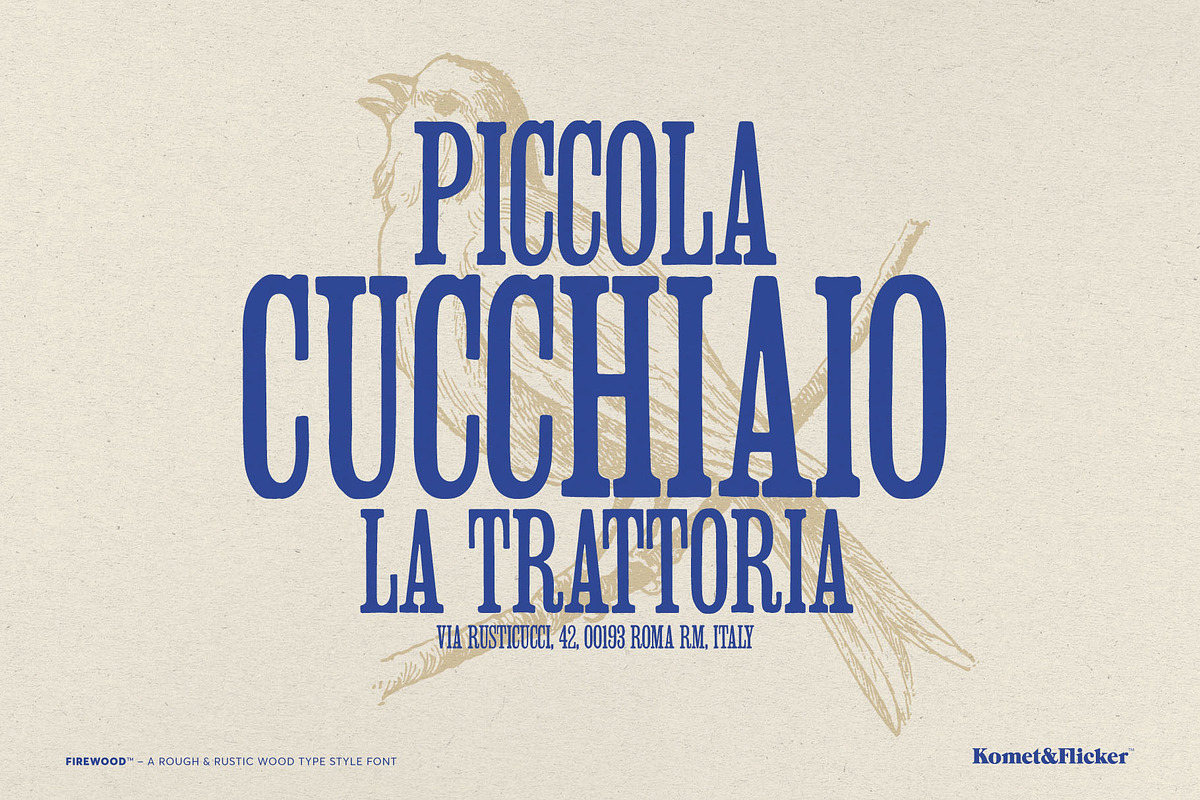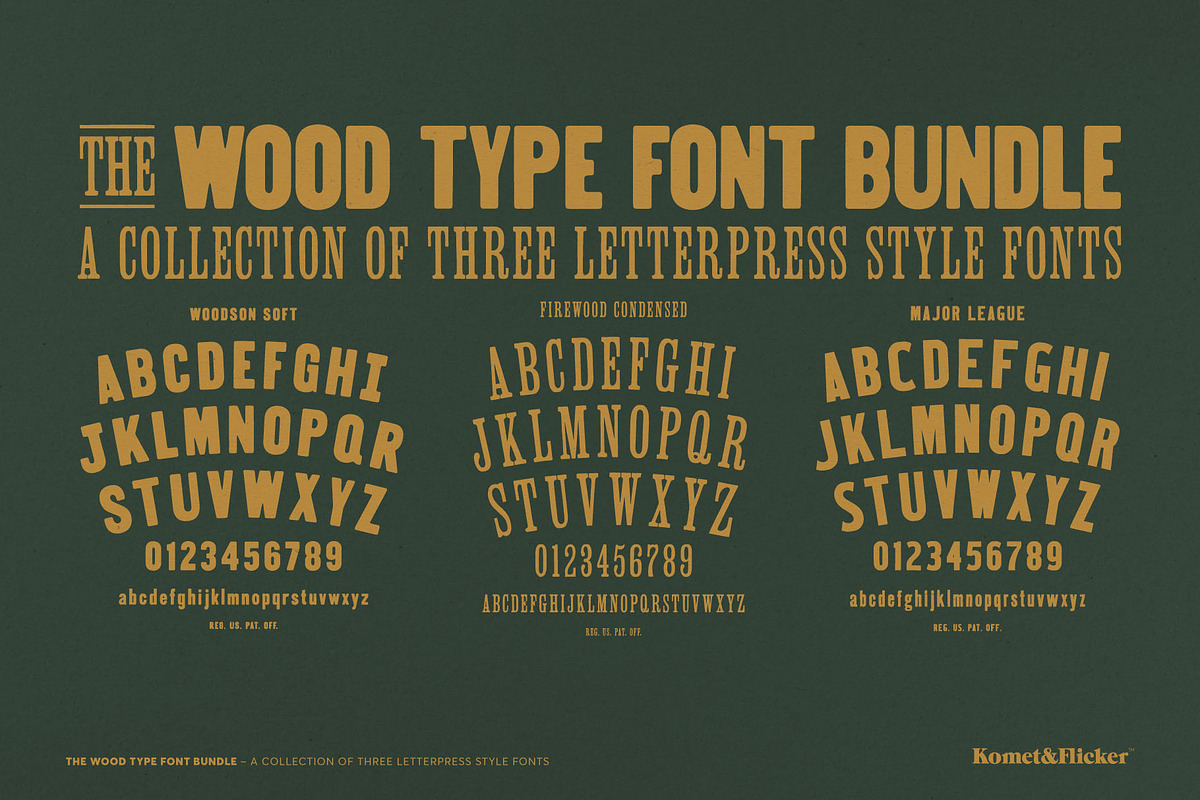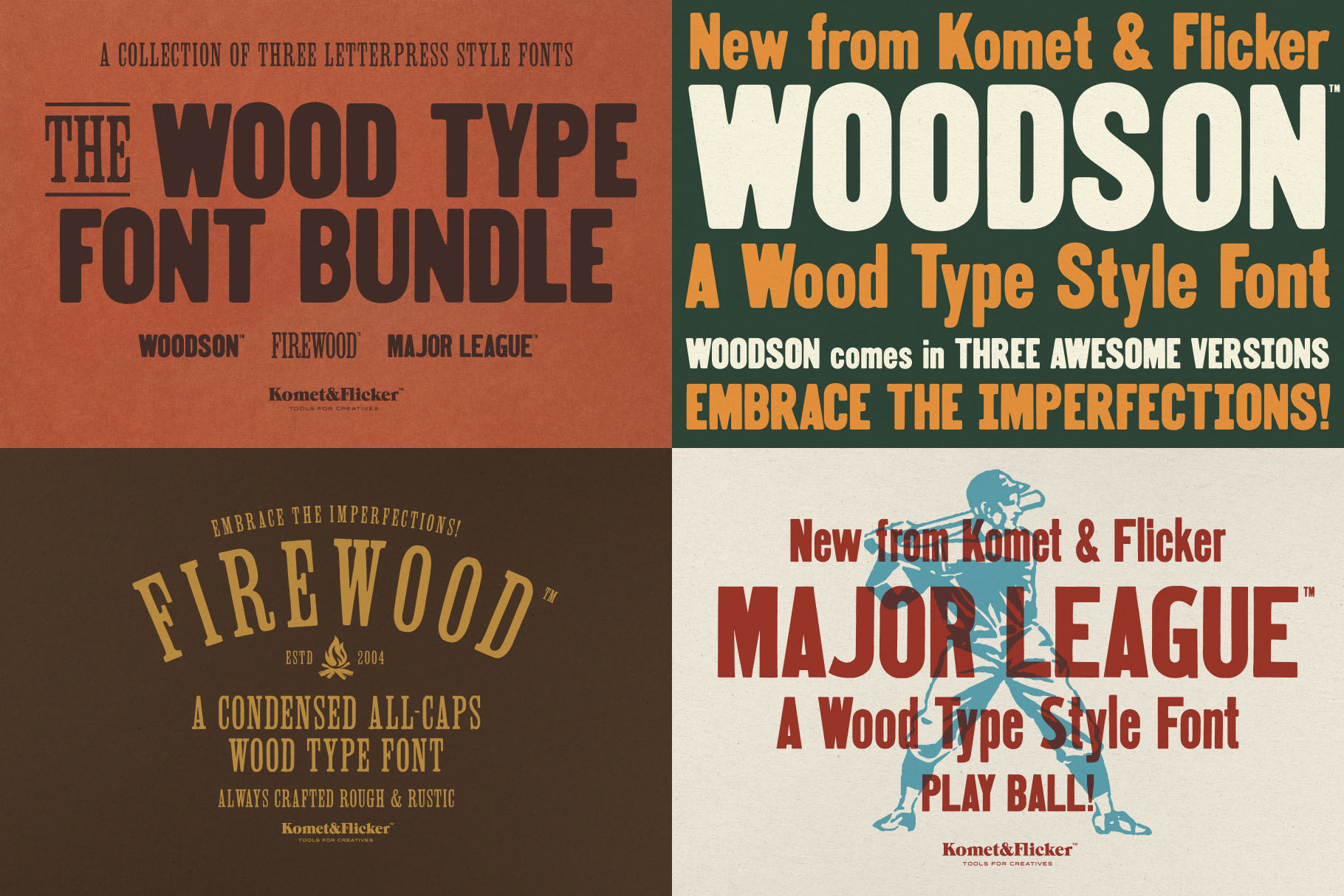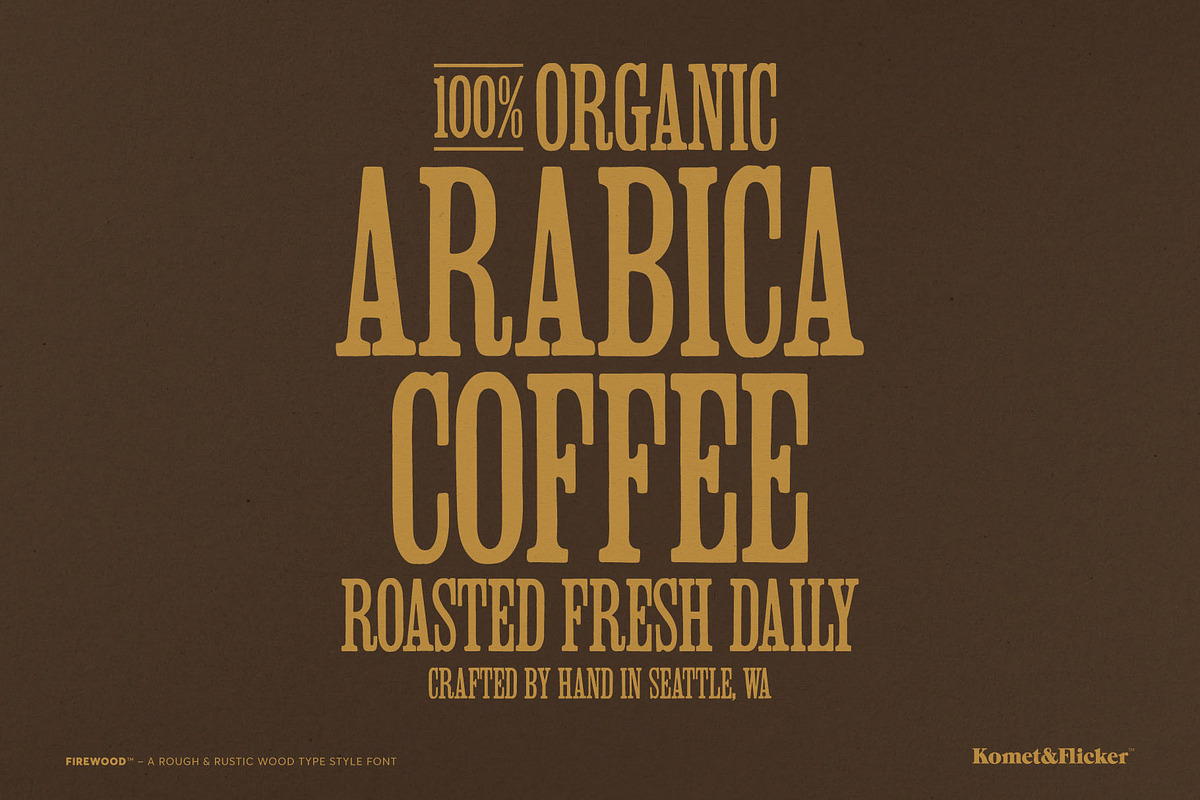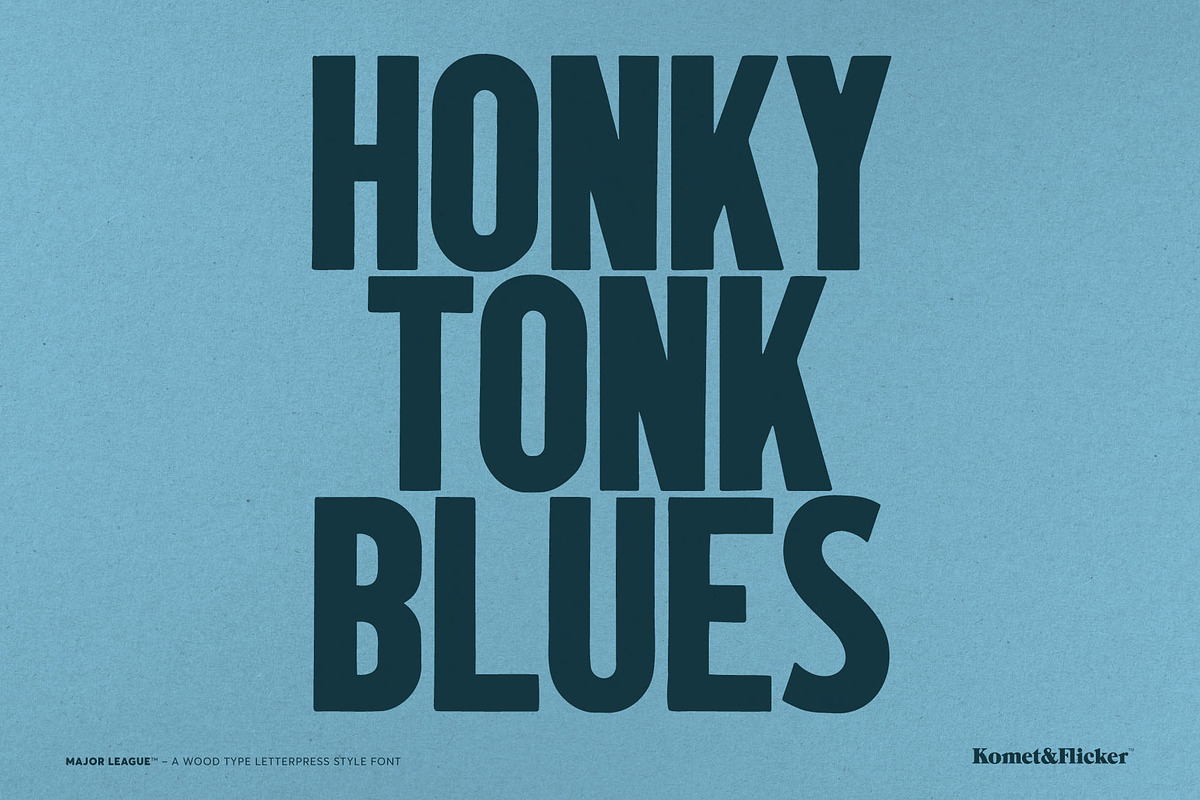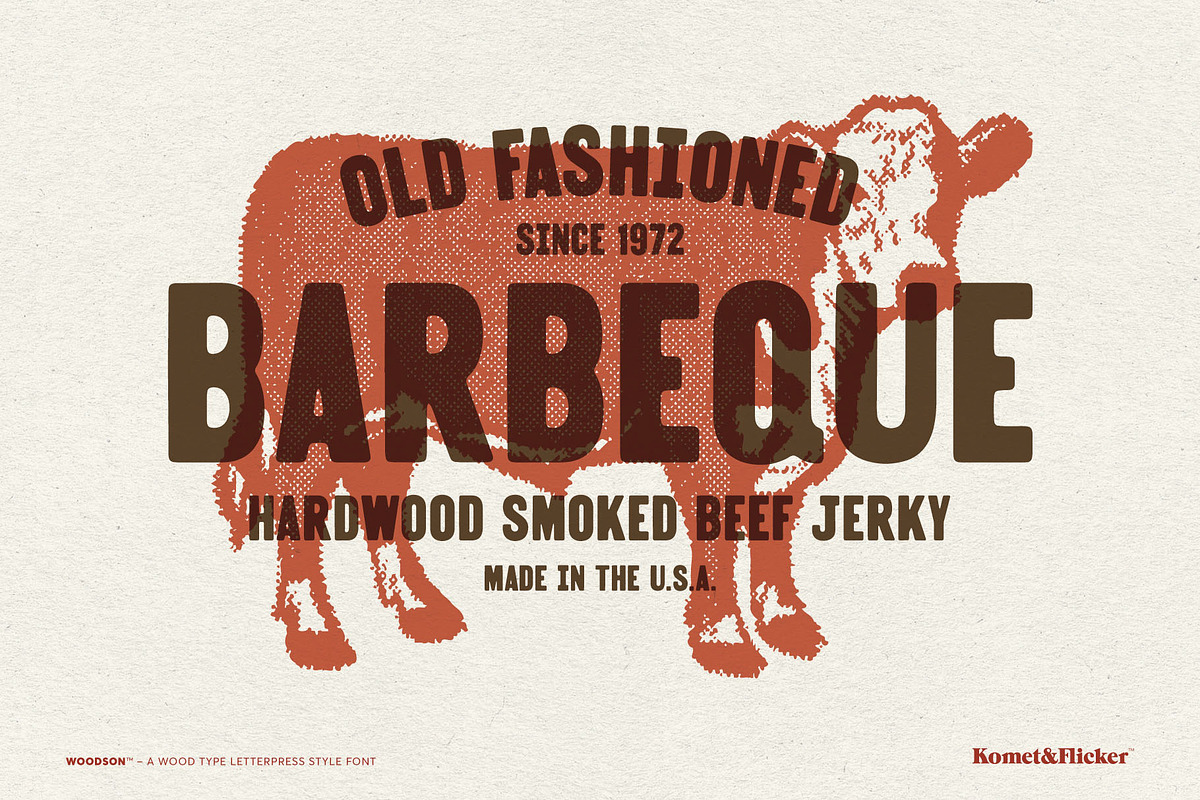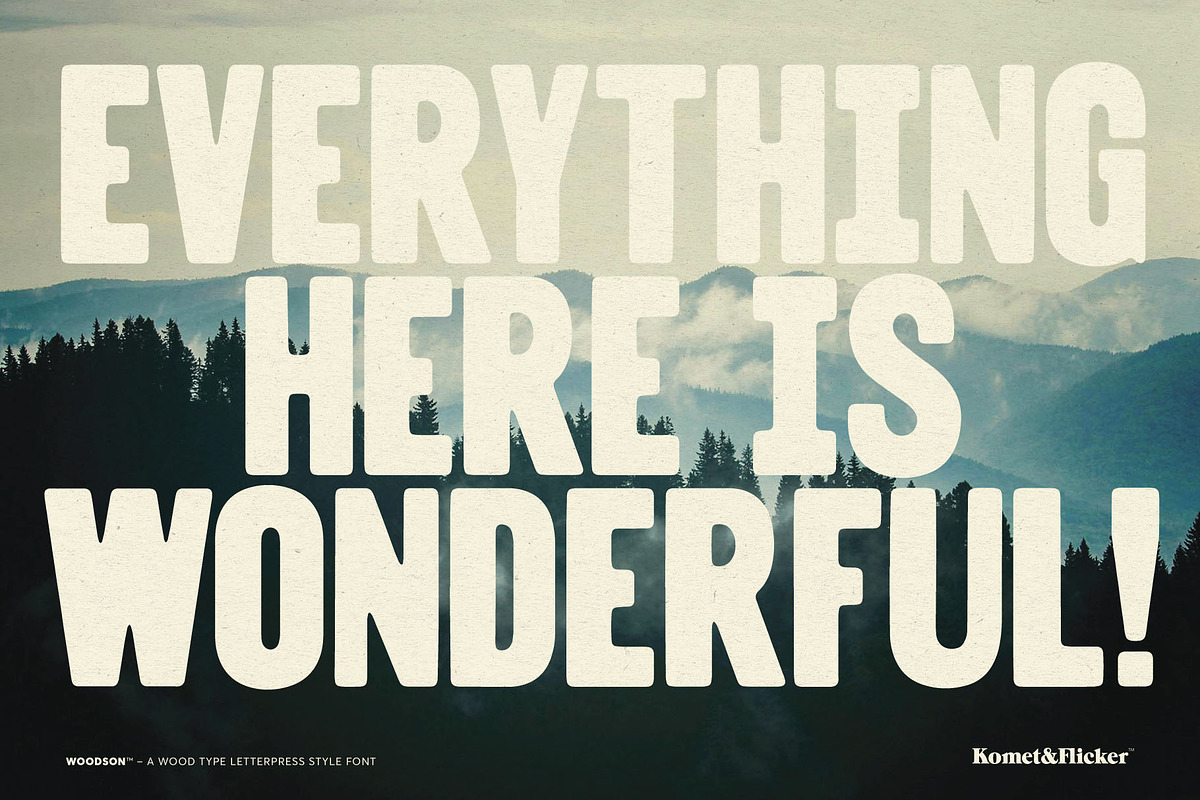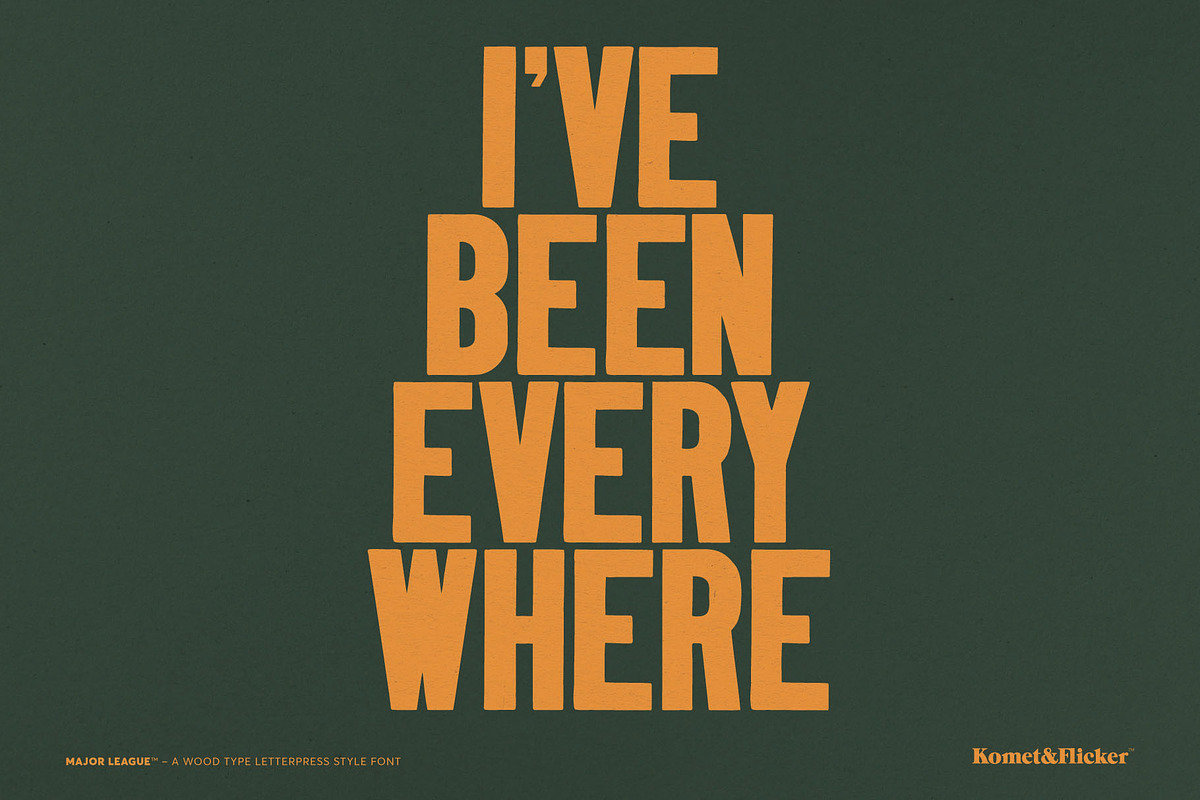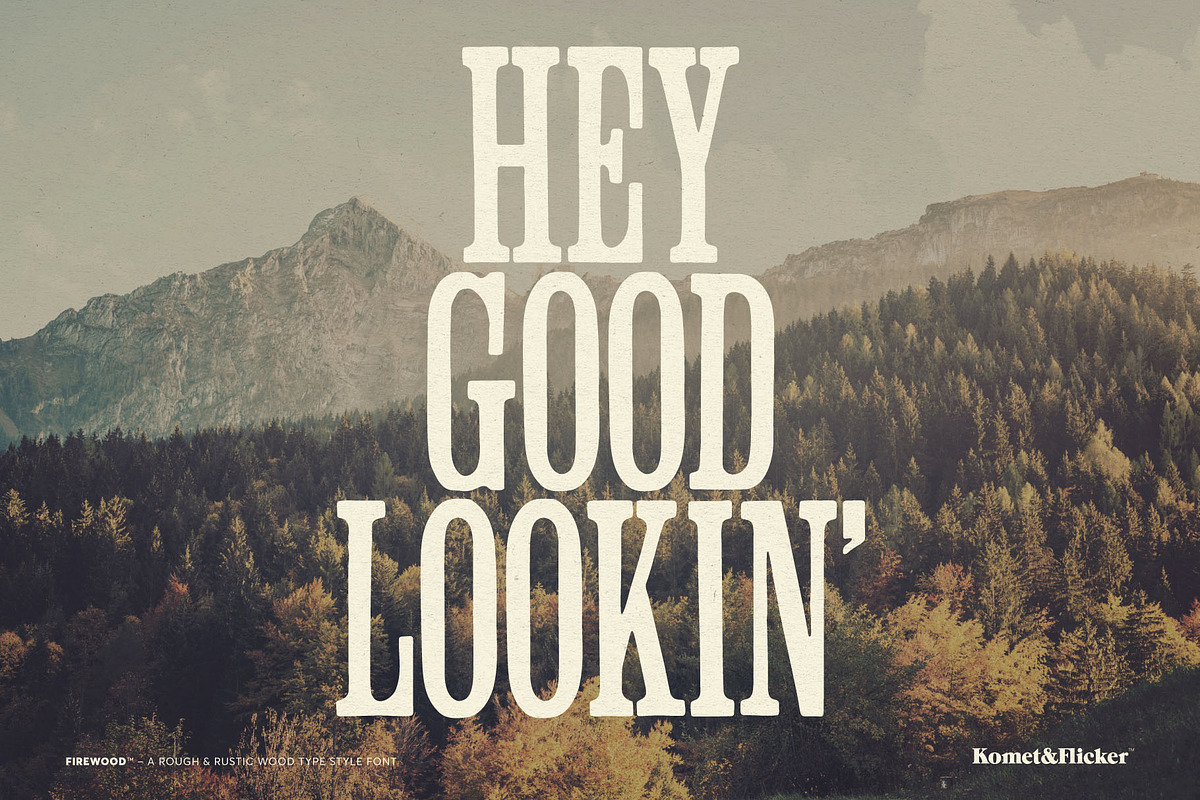
The Wood Type Font Bundle
Elevate your designs with The Wood Type Font Bundle, a curated selection of three of our most popular wood type and letterpress inspired font families: Woodson, Firewood, and Major League. This remarkable collection features three individual fonts that embody a distinct vintage and rustic aesthetic, perfect for adding an authentic touch to any creative endeavor.
Whether you’re crafting logos, packaging, or marketing materials, these rustic fonts provide a versatile palette to mix and match, allowing you to create a variety of vintage styles that resonate with warmth and character.
THIS THREE FONT BUNDLE INCLUDES
Woodson Soft Bold
Firewood Condensed
Major League Bold